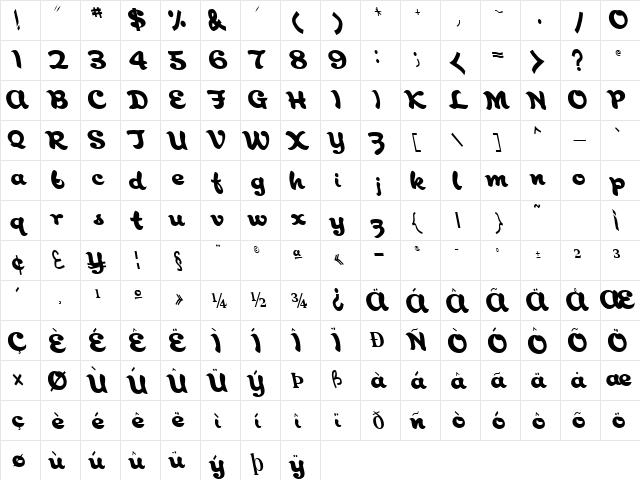
Aborigianl Regular
Design Context for Aborigianl Typeface
Aborigianl is a composed and adaptable typeface that performs quietly and consistently across a wide range of design contexts.